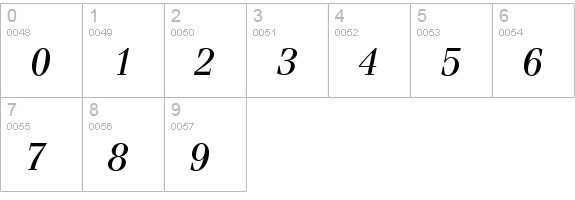
FeniceEF-RegularItalic Font Details
FeniceEF-RegularItalic is a stunning and elegant font that exudes sophistication and style. Its graceful italicized design adds a touch of flair to any project, making it perfect for use in branding, invitations, and editorial design. The delicate curves and smooth lines of this typeface give it a timeless and classic appeal. What makes FeniceEF-RegularItalic even more desirable is that it is available for free download at FontsMarket.com. This means that you can enhance your designs with this beautiful font without any cost, making it accessible to everyone looking to elevate their typography game. Don't miss out on the opportunity to add FeniceEF-RegularItalic to your font collection and bring a touch of refinement to your projects.